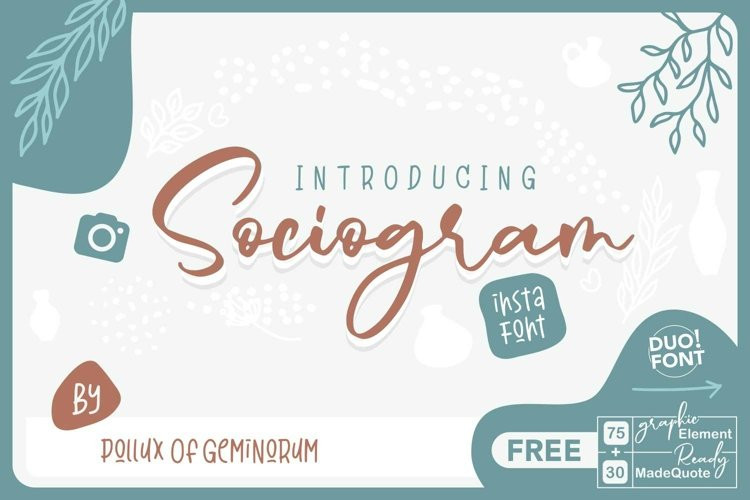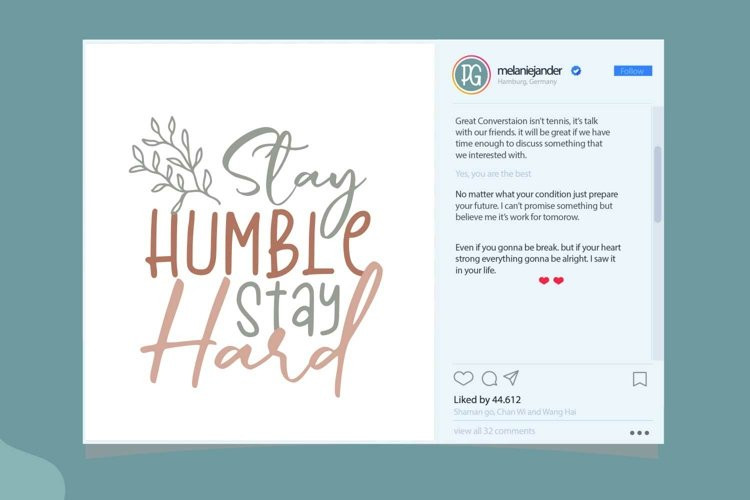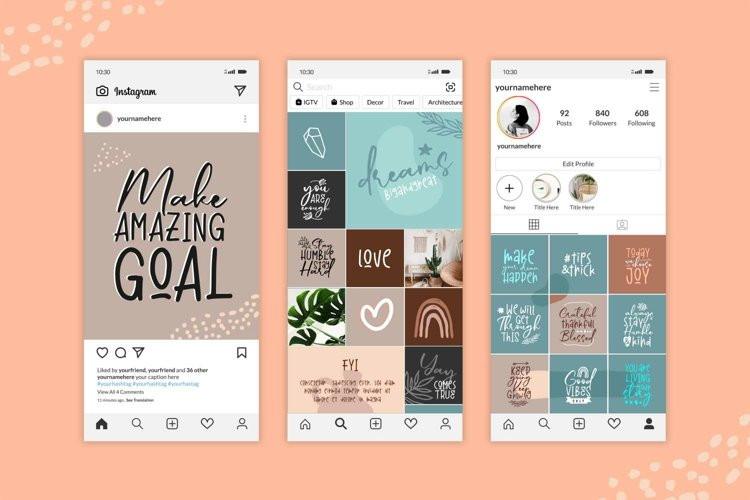
Sociogram Font
Sociogram FontInsta Font – Sociogram is the perfect font for Instagram content. Include 2 fonts with script and handwritten style.
Also great for quote font, logo, branding, creating content, greeting card, wedding invitation, design etc.